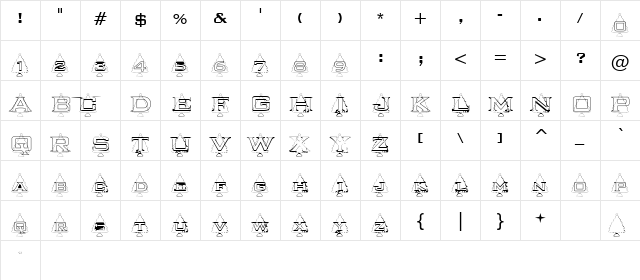
ChristmasTreeByPerry Free Font
ChristmasTreeByPerry
Design Context for ChristmasTreeByPerry
ChristmasTreeByPerry is a composed and adaptable typeface that performs quietly and consistently across a wide range of design contexts.